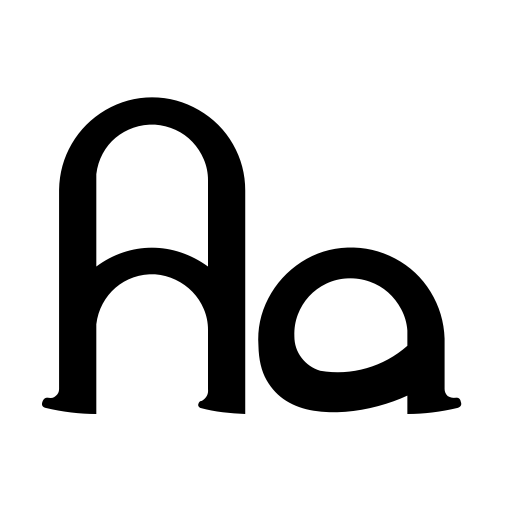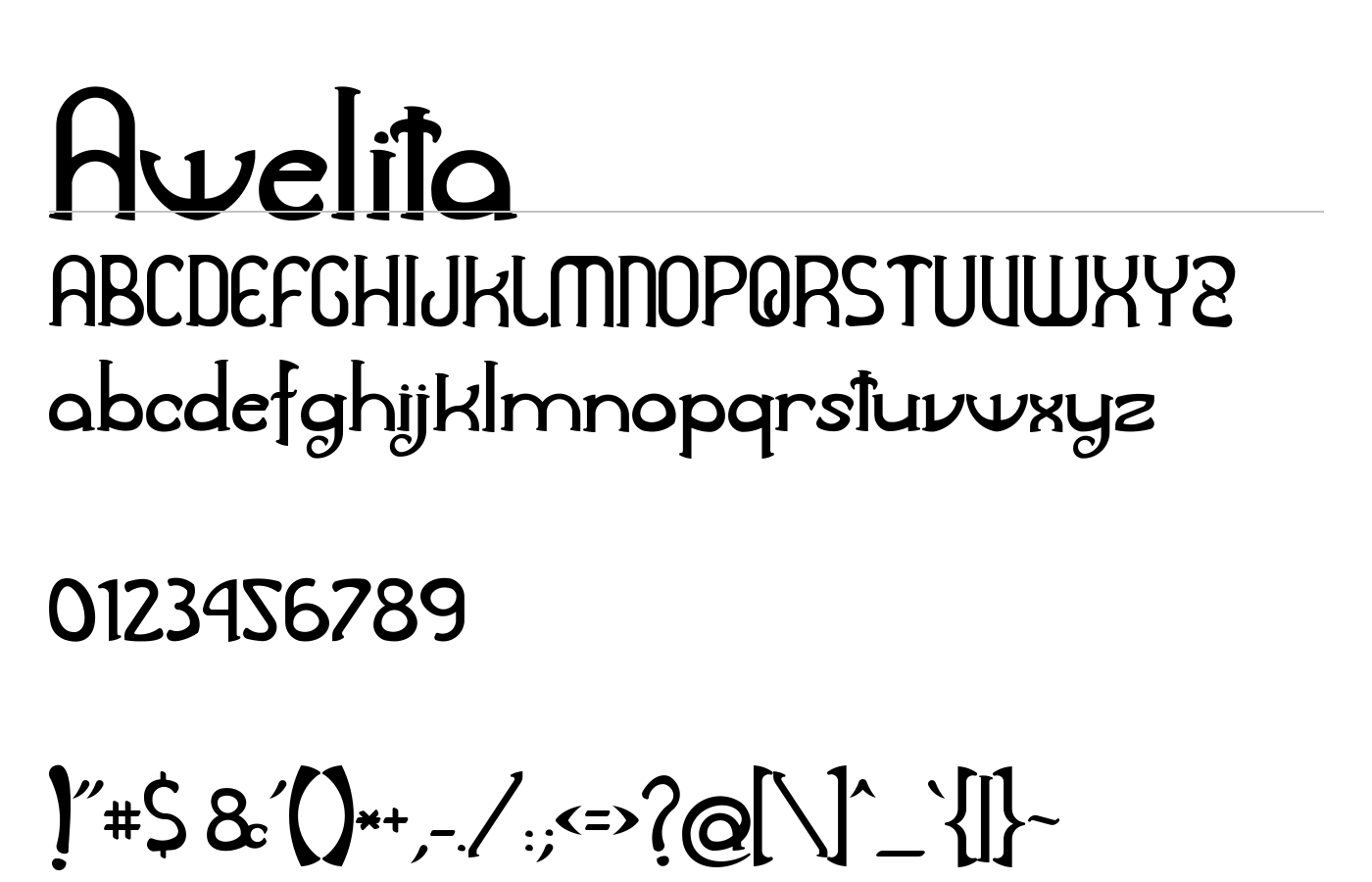
Awelita is a distinctive serif font with a vintage, decorative flair that balances elegance and playfulness. Its tall, narrow letterforms with unique, sharp serifs and charmingly quirky details make it ideal for creative branding, stylish headlines, or artistic packaging where personality and sophistication are key. This font works best in display settings, adding a memorable and refined touch to projects seeking a blend of classic and imaginative style.
Awelita Font
About Awelita Font
| Designer | Alberto Villanueva |